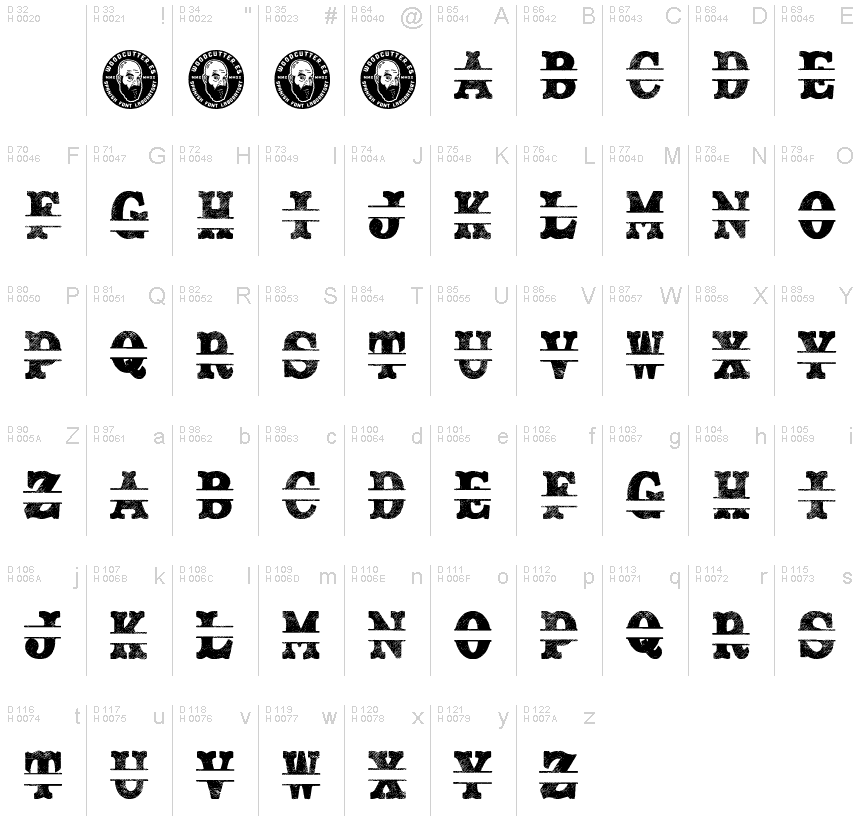
Split Letras
Woodcutter's Split Letras font is a striking display typeface that captures the essence of the Wild West. With its decorative and eroded style, this bold font brings a rugged charm to any project.
Perfect for saloon signage, cowboy-themed invitations, or vintage-inspired posters, Split Letras adds a touch of authenticity to your designs. Its unique Western aesthetic will transport your audience to the untamed frontier, making it suitable for everything from whiskey labels to adventurous branding campaigns.
Embrace the spirit of the Old West with Split Letras and let your creativity run wild.